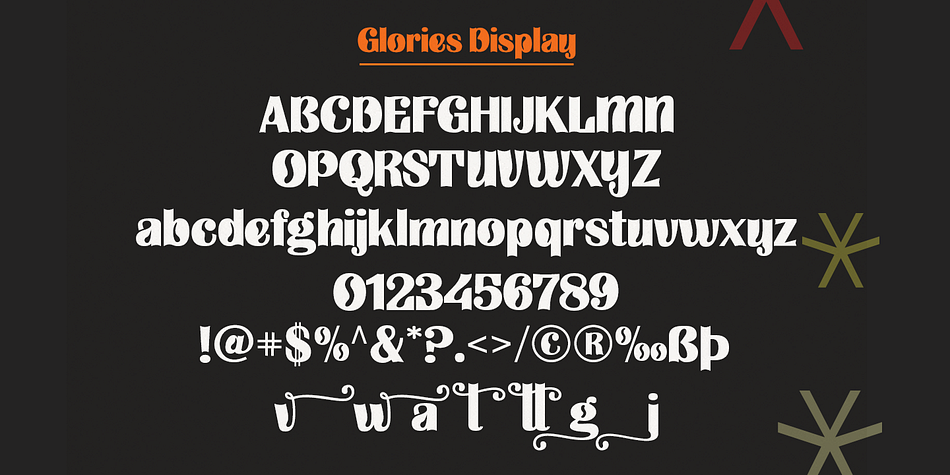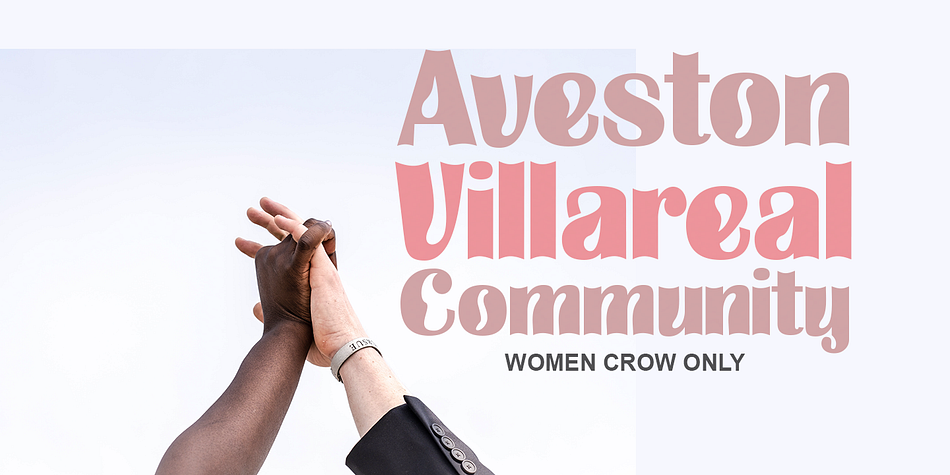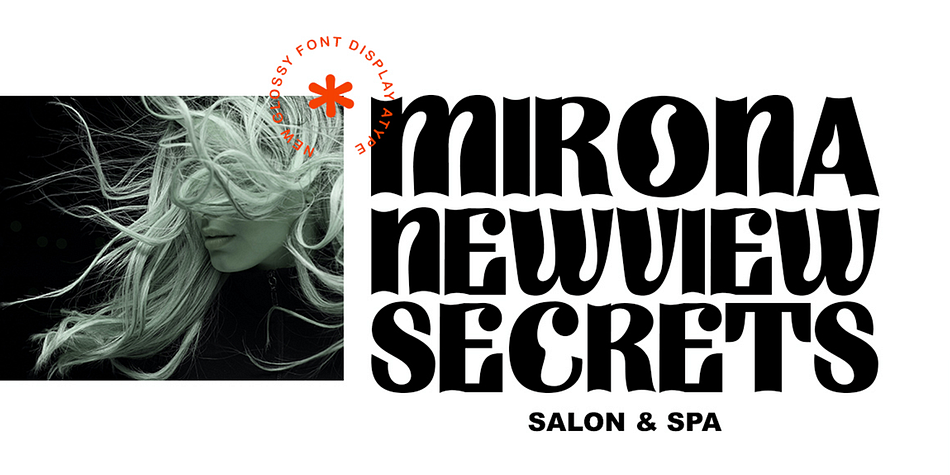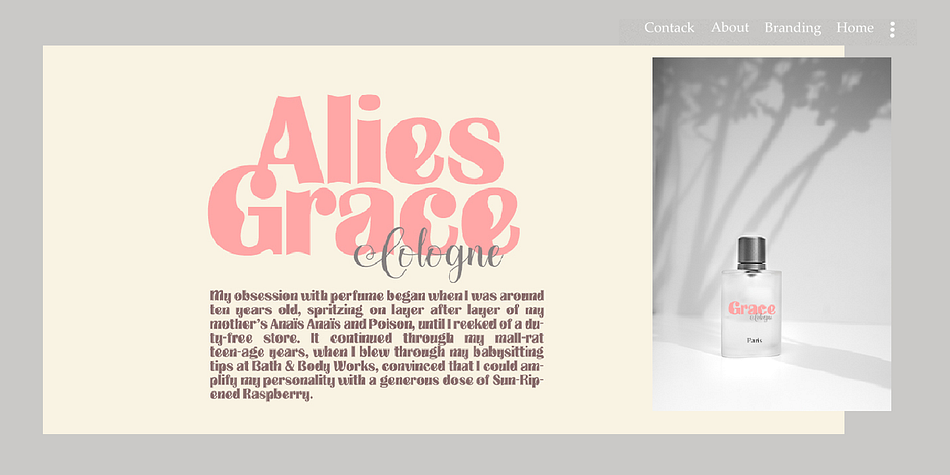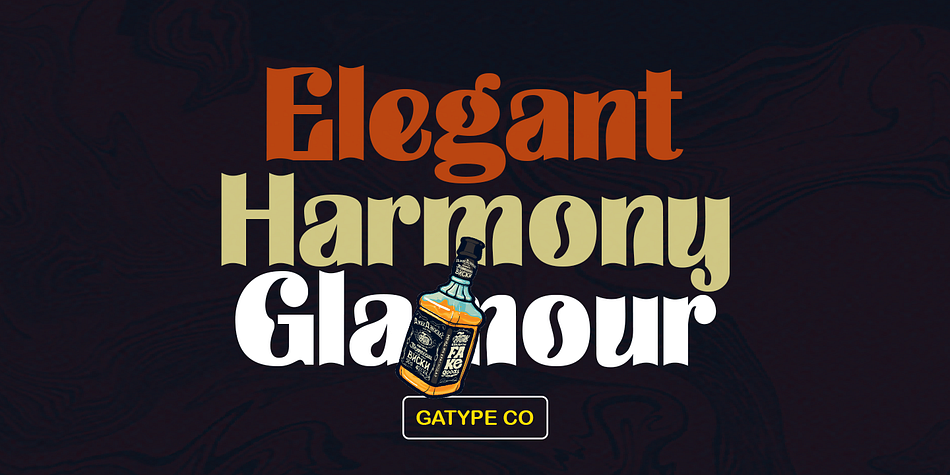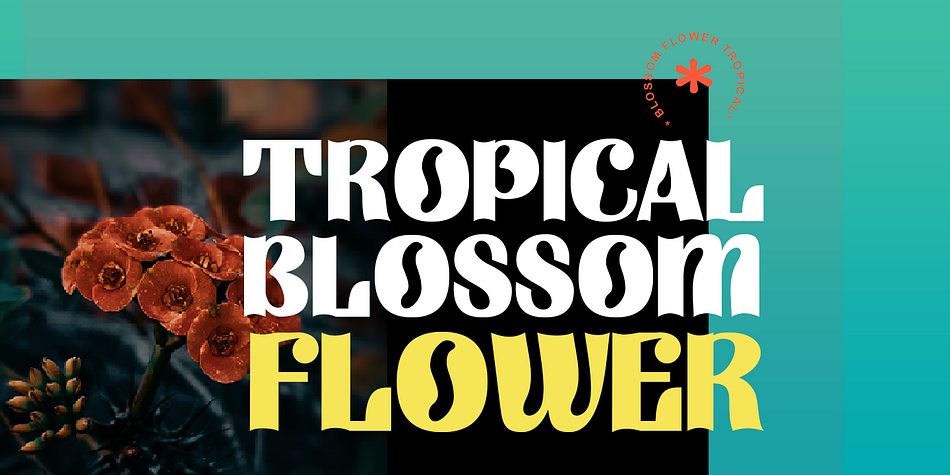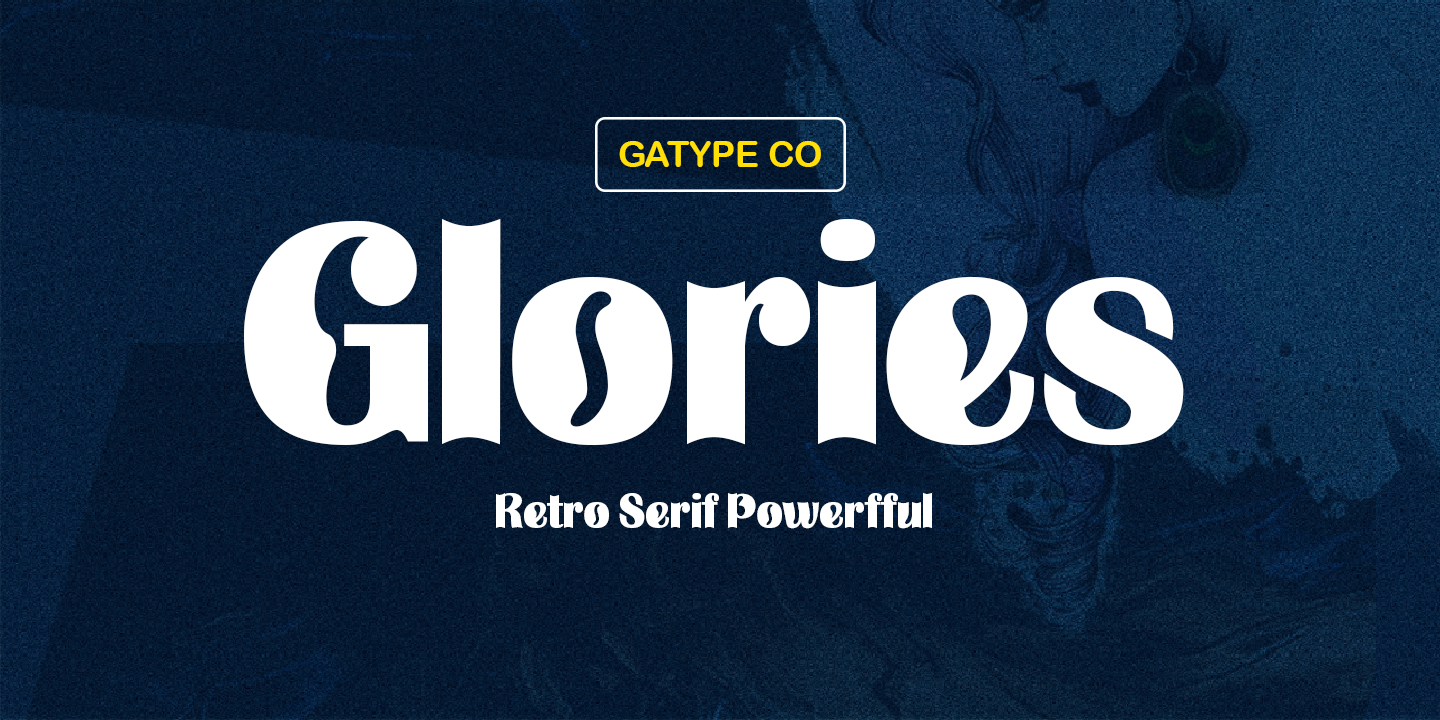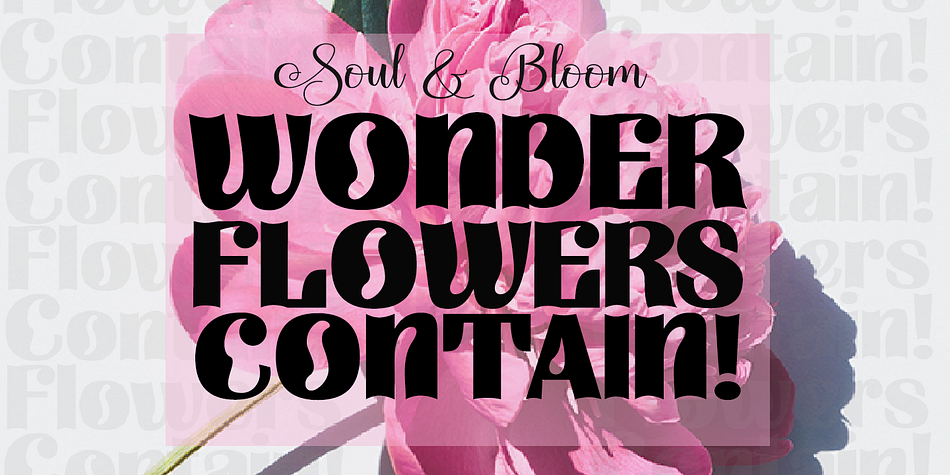
Glories
Glories is a display serif and retro font family published by Gatype.
Elegant, graceful and timeless. Glories is a versatile font with timeless classic appeal, more than a dozen alternatives & ligatures, multilingual support and great precision for you to incorporate into your designs!
Each letter has been hand drawn and crafted with great care. The various weights provide a variety of options that will help you find the best typographical character for your project. Perfect for logos, notes, posters, t-shirts, stickers, posters, mugs, labels, etc.